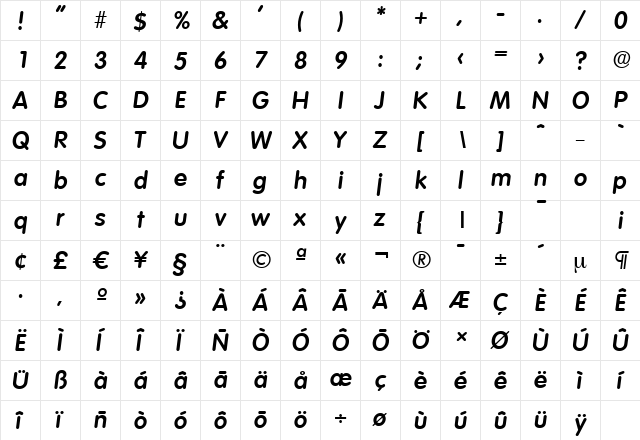
VolkswagenSerial BoldItalic
Design Context for VolkswagenSerial Typeface
VolkswagenSerial is a composed and adaptable typeface that performs quietly and consistently across a wide range of design contexts. The dynamic lean of this cut emphasises speed and emphasis in any layout. Its bold stroke weight gives it real presence on the page.
Pro Tip: Use VolkswagenSerial for emphasis, pull quotes, and subheadings where its slanted energy can add rhythm to the layout.